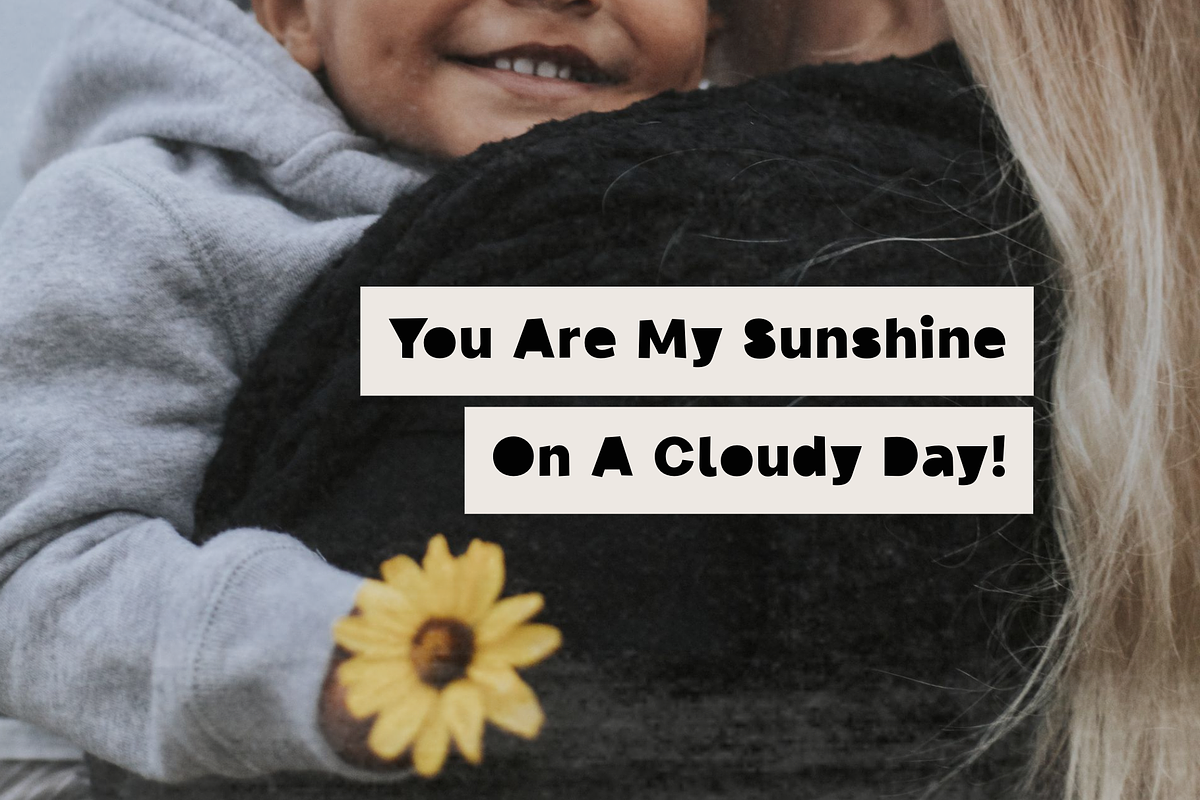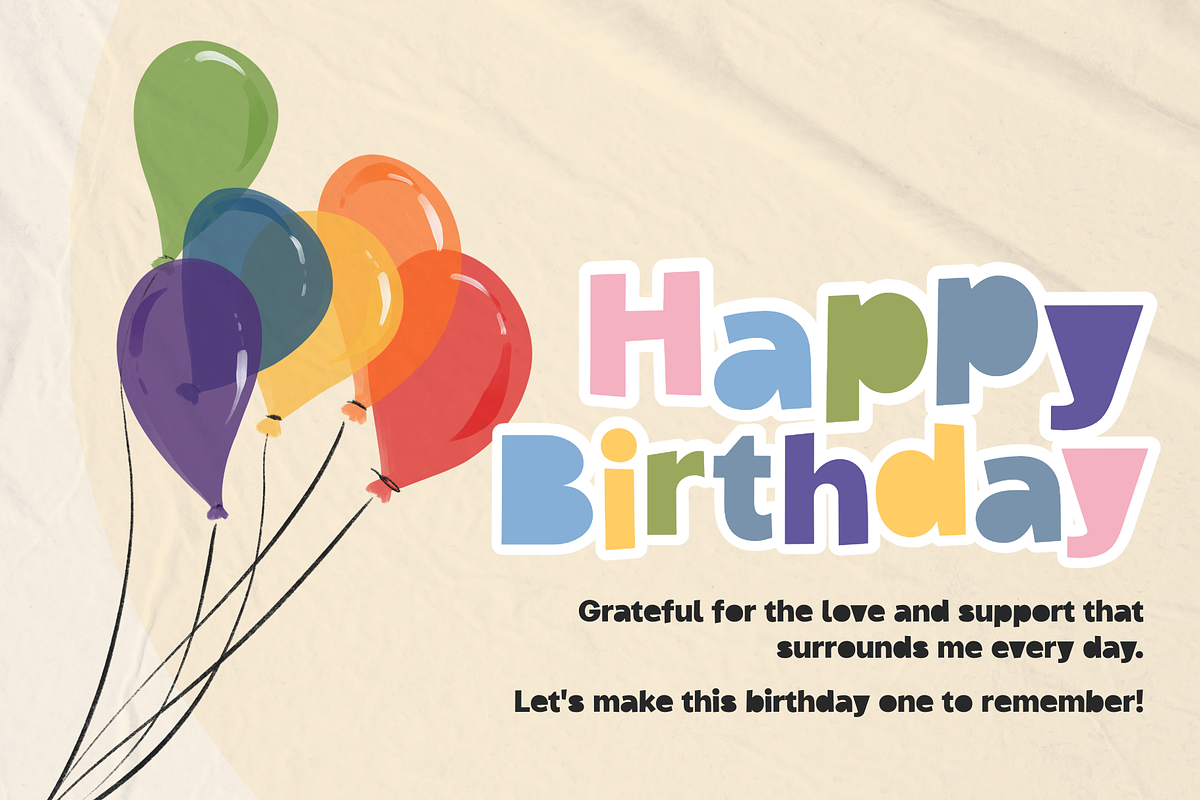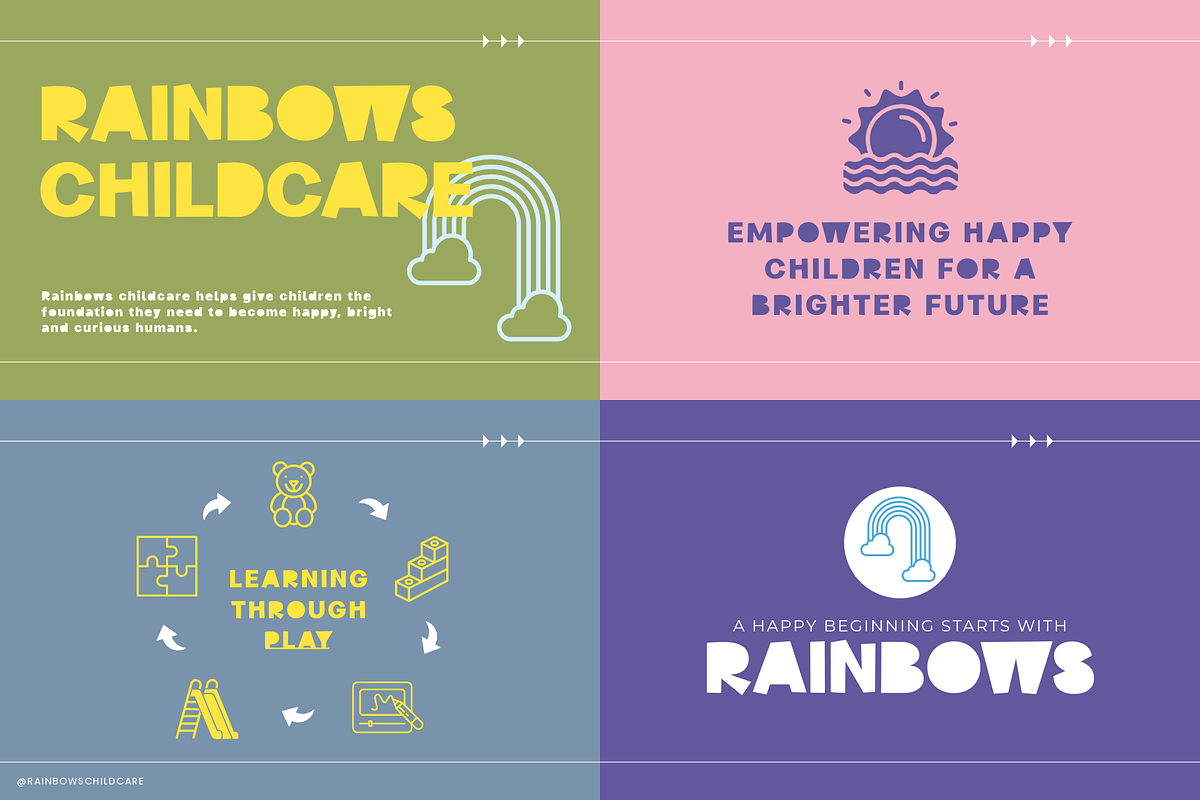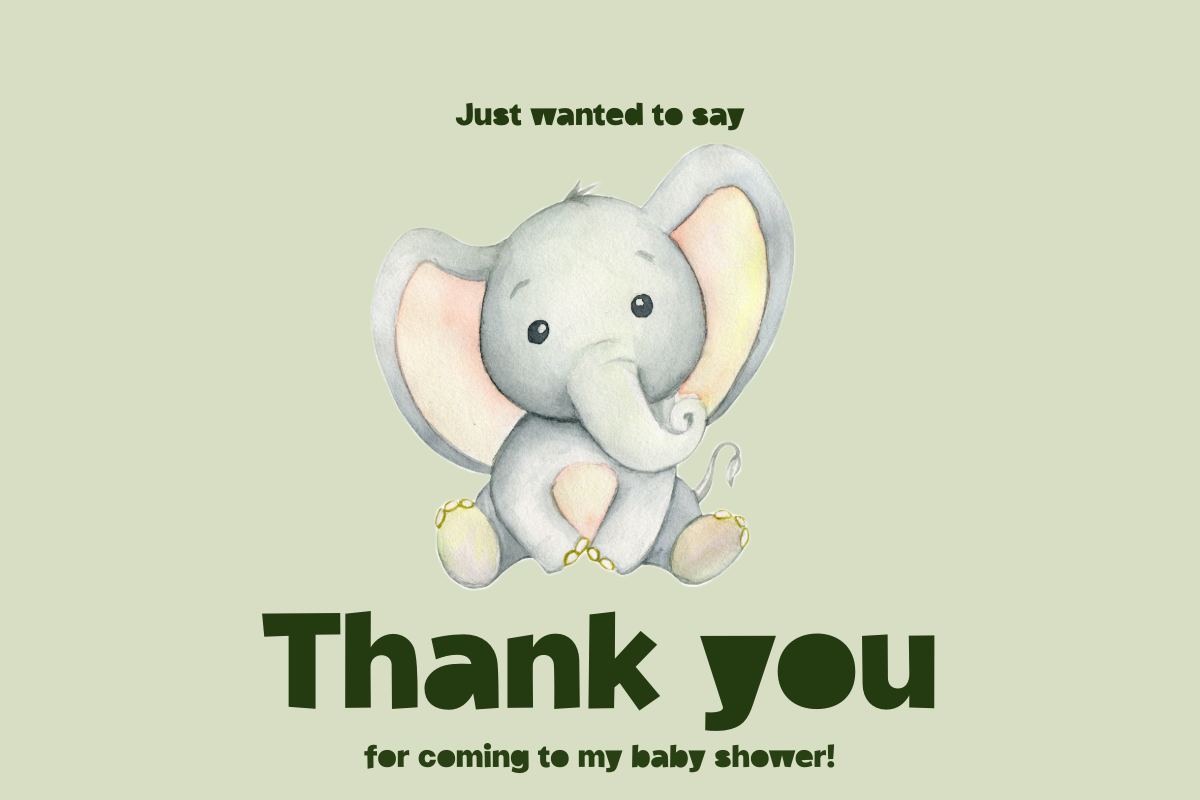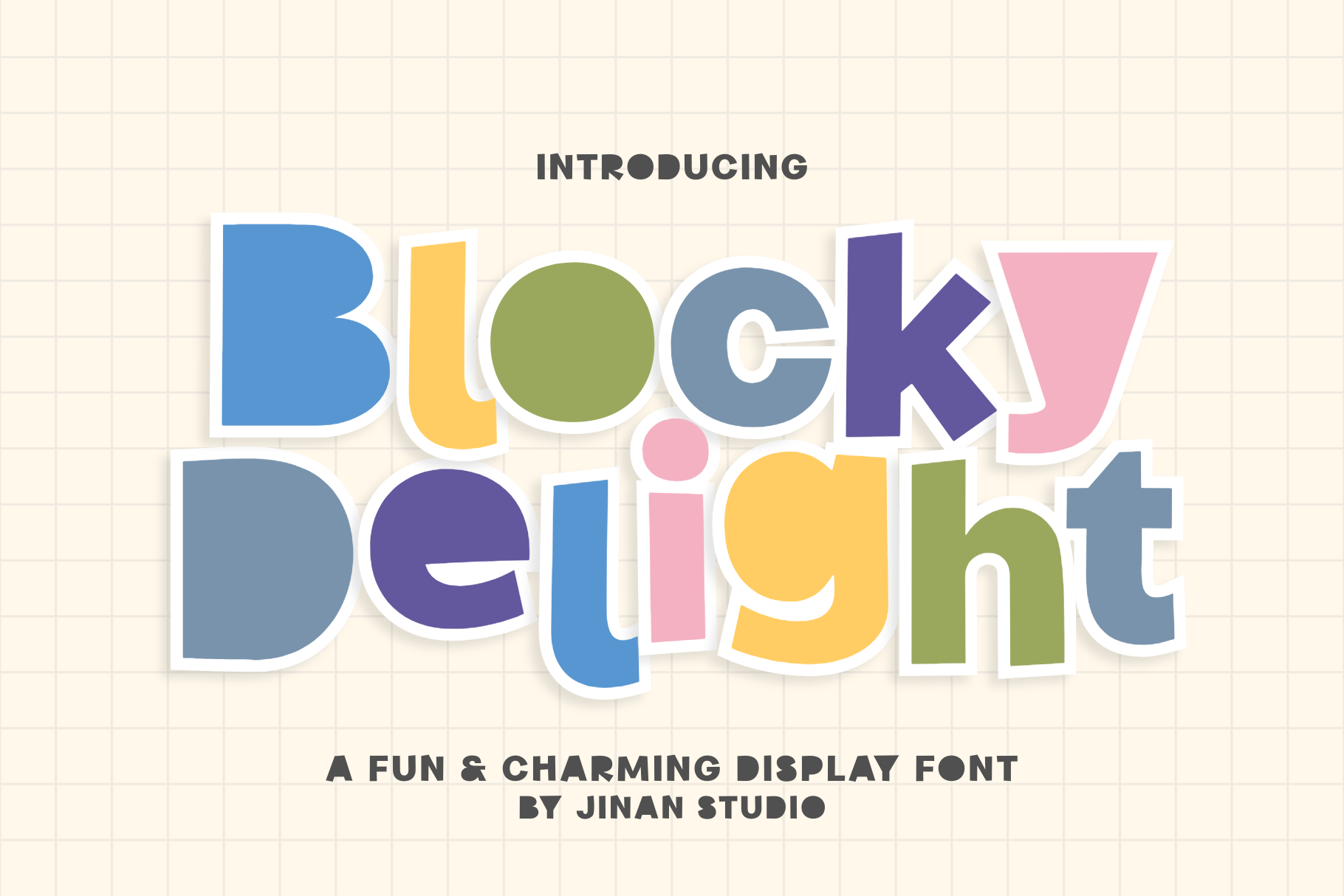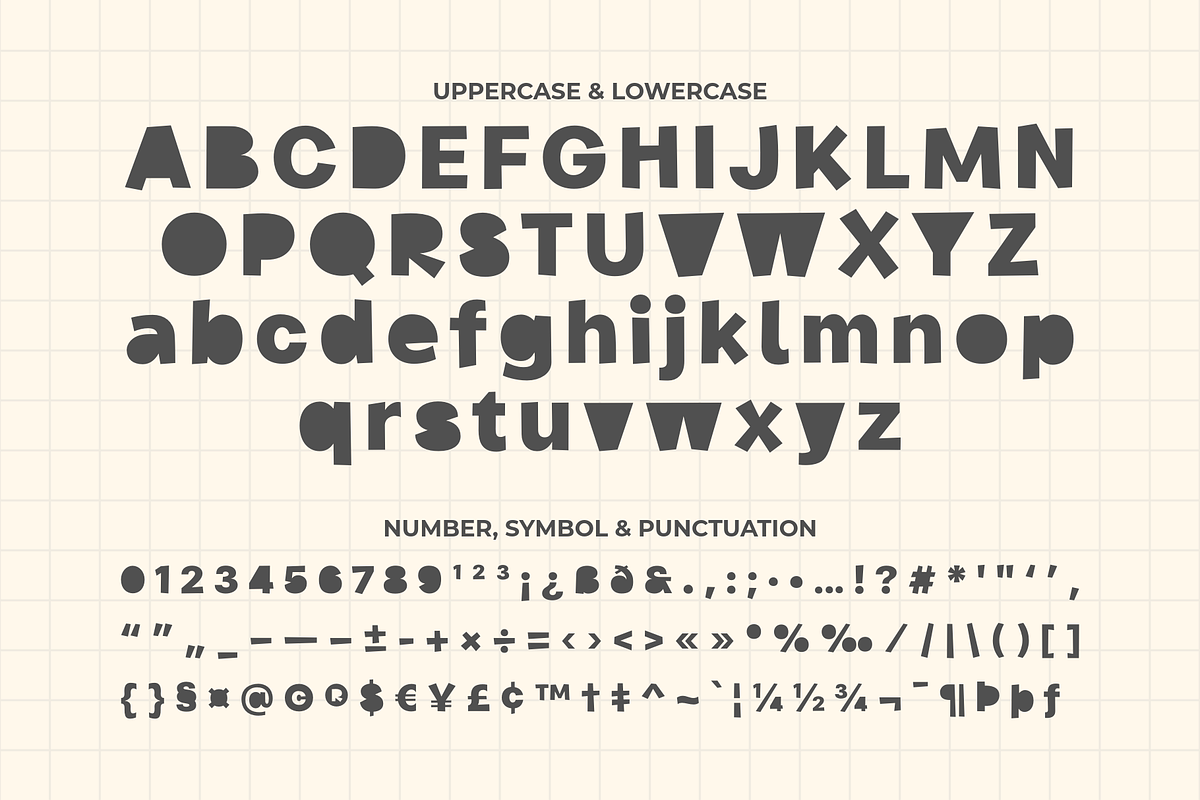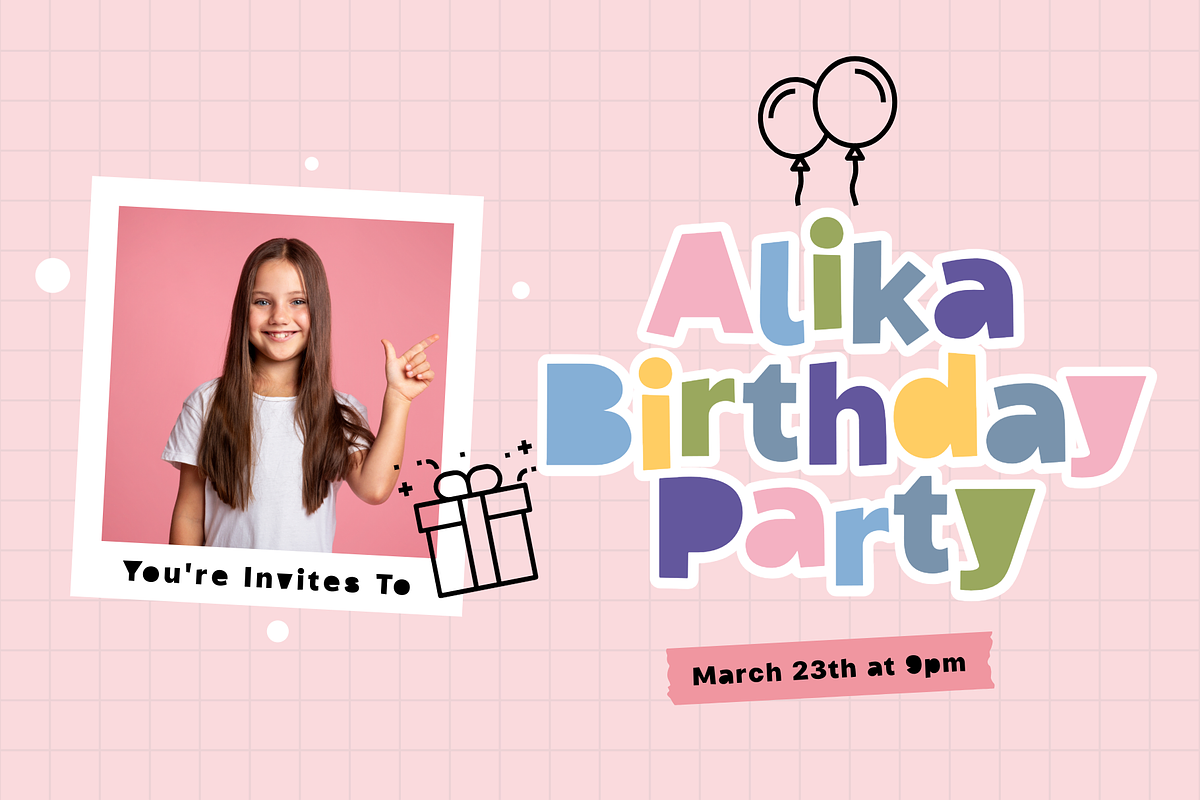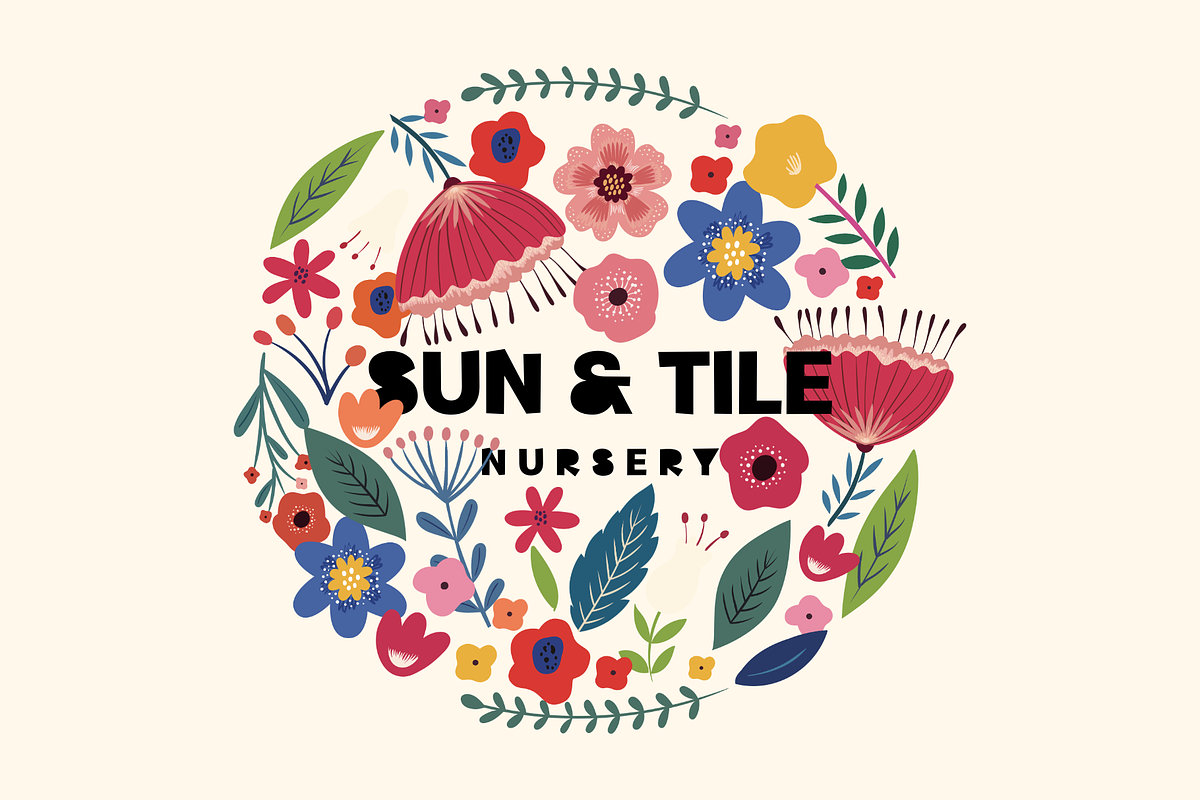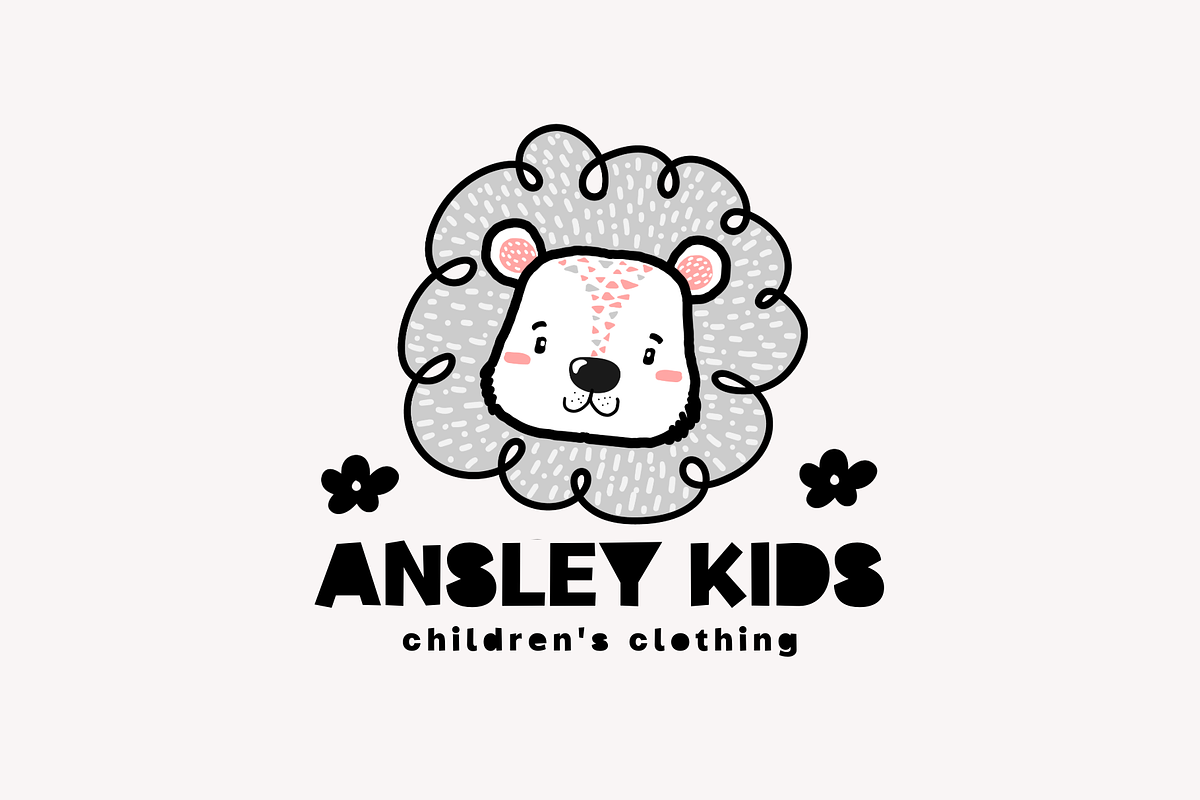
Blocky Delight - A Display Font
Blocky Delight is a fun and charming display font created to brighten up your designs with a playful and joyful touch. Featuring bold chunky letters, soft rounded edges, and unique whimsical shapes, this font brings a lively personality that feels friendly, cute, and full of happiness.
Designed especially for children’s themes and cheerful creative projects, Blocky Delight is perfect for kids branding, educational materials, birthday invitations, toy packaging, nursery decor, posters, stickers, and social media designs that need a colorful and energetic look. Its bold presence makes every word stand out while keeping a warm and approachable feel.
The playful structure and handmade character give this font a natural and expressive style, making it ideal for projects that want to feel fun, imaginative, and memorable. Whether used for school designs, children’s products, or happy seasonal artwork, Blocky Delight adds a delightful visual charm that captures attention instantly.
A set of uppercase and lowercase glyphs
Number, symbol, and punctuation